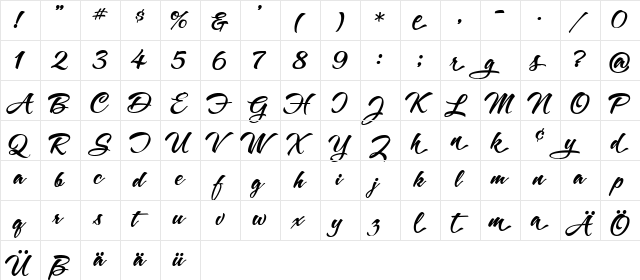
ASSnapperScript Regular
Design Context for ASSnapperScript Typeface
ASSnapperScript brings a calligraphic fluidity to the page — its connecting strokes and expressive curves give it an unmistakably human quality.
Font Pairing: Combine ASSnapperScript with a simple geometric sans for maximum contrast — the tension between flowing curves and clean structure is a classic typographic pairing.
Pro Tip: Pair ASSnapperScript with a clean sans-serif for supporting text. The contrast between fluid script and geometric structure creates an elegant typographic hierarchy.